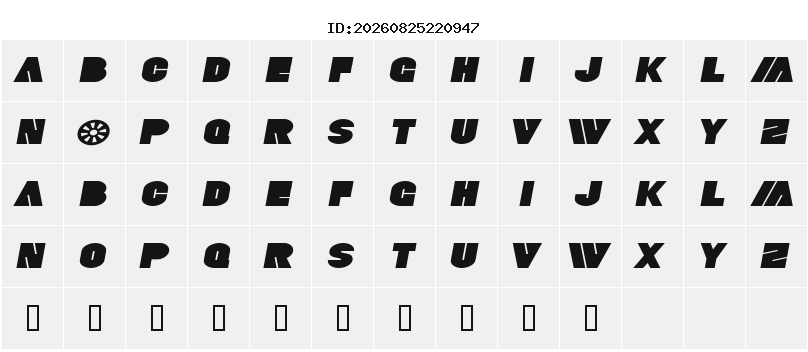
SF Fortune Wheel Exp Preview
• Font Name: SF Fortune Wheel Exp
• Font ID: SF Fortune Wheel Exp Bold Italic
• Full Font Name: SF Fortune Wheel Exp Bold Italic
• PostScript Name: SFFortuneWheelExpBoldItalic
About SF Fortune Wheel Exp.ttf
SF Fortune Wheel Exp.ttf is a modern, elegant sans-serif font designed for ultimate readability and visual harmony. Perfect for branding, headlines, web design, and print materials.